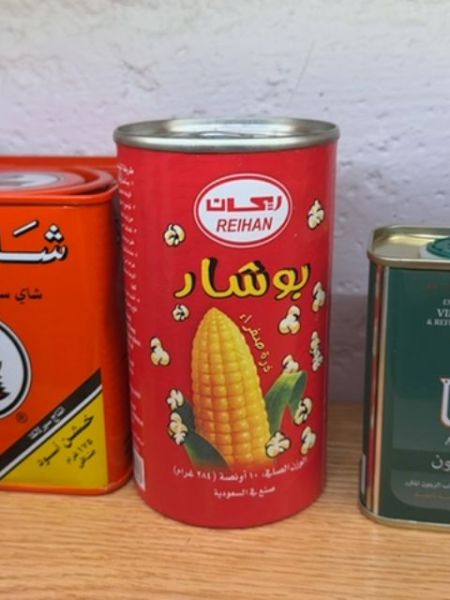
Reihan Popcorn
This is a can of popcorn, intended for consumption as a snack, providing a corn-based, savory treat.
Iran
The typography on the can prominently features bold, rounded scripts for both Latin and Persian text, creating a sense of approachability and fun. The brand name 'Reihan' is in a Roman typeface that is clean and modern, providing a contrast to the playful script used for the product name and description. The use of typography is both modern and traditional, appealing to a diverse consumer base.
The packaging features a bright red cylindrical tin with images of popped popcorn and a large corn cob prominently displayed, conveying the product's primary ingredient. The design uses striking images to draw attention, with popcorn graphics scattered around the can to emphasize its content.
- The product comes in a highly recognizable red tin can.
- It features a visual of corn, reinforcing the primary ingredient.
- The brand is known for producing snack foods.